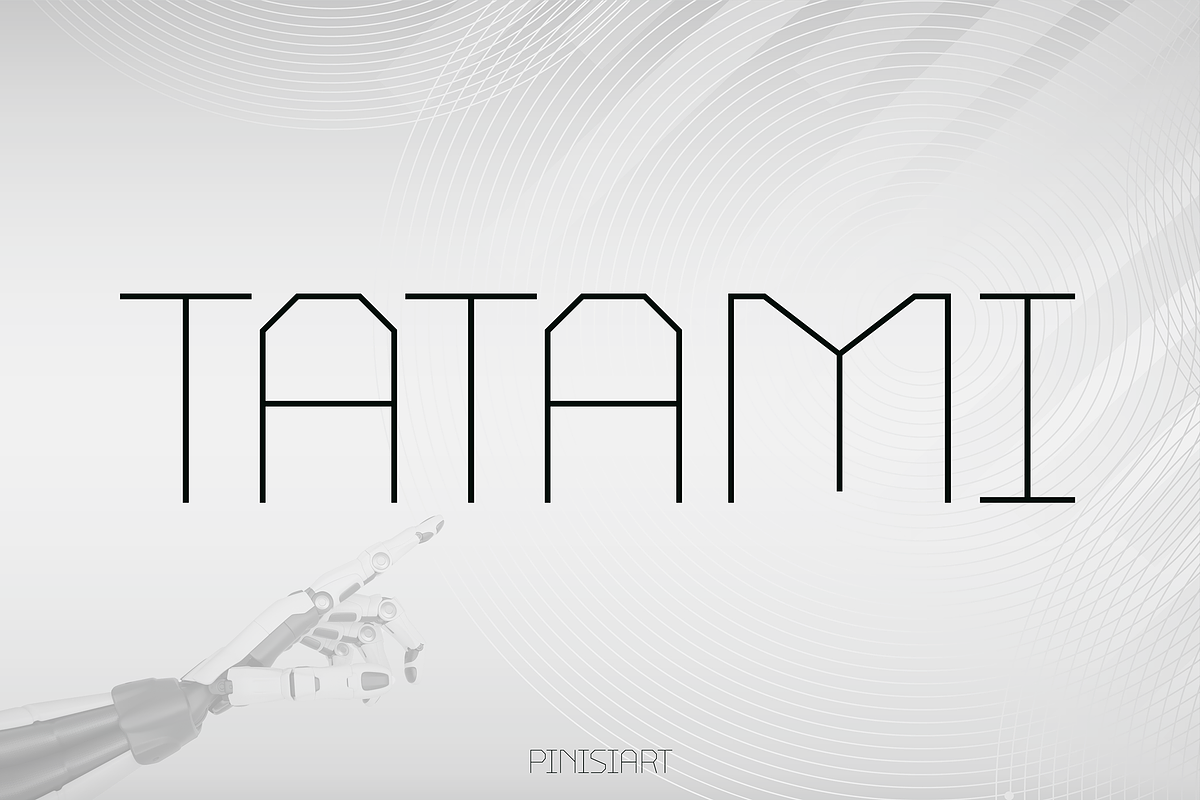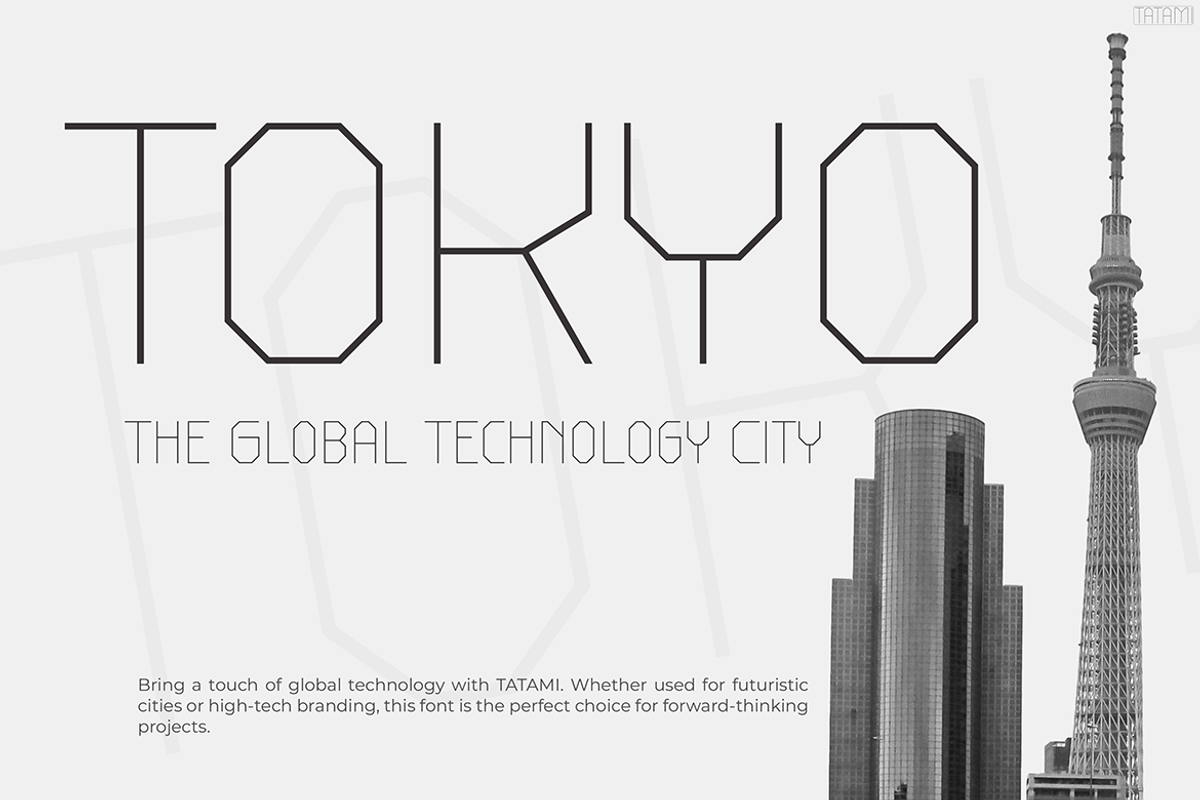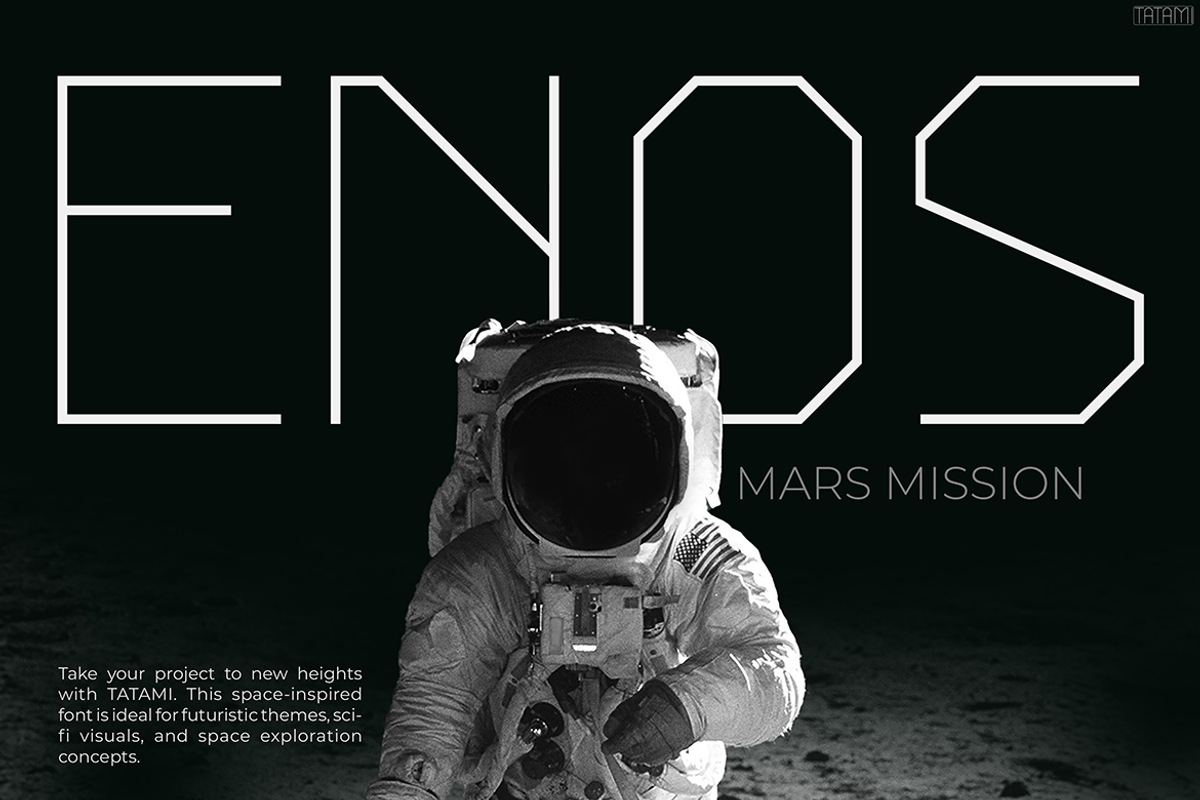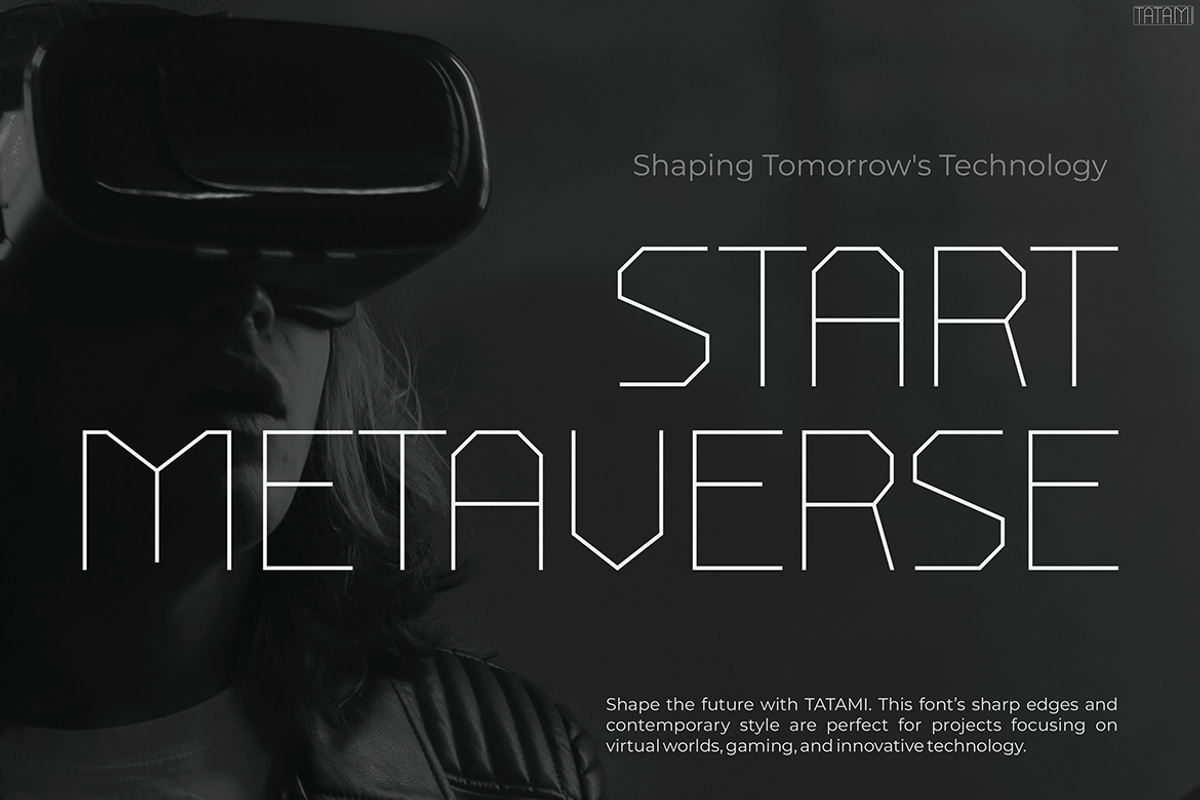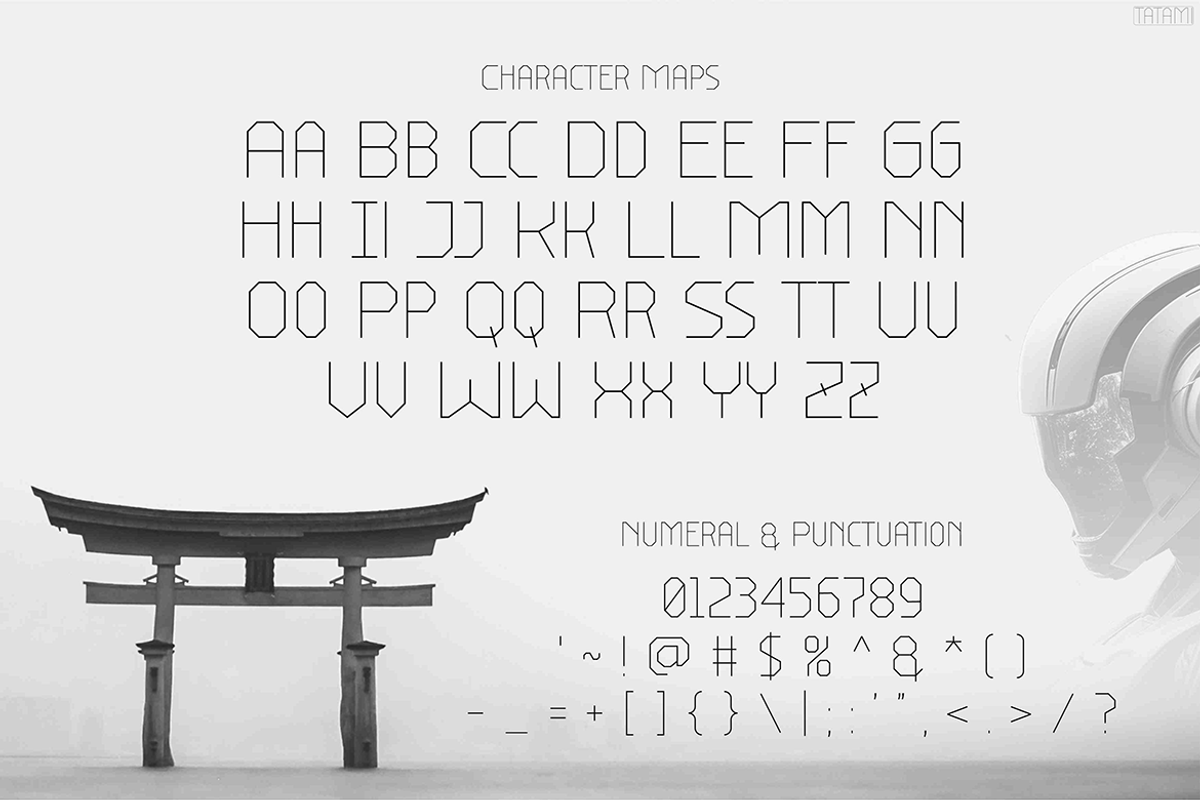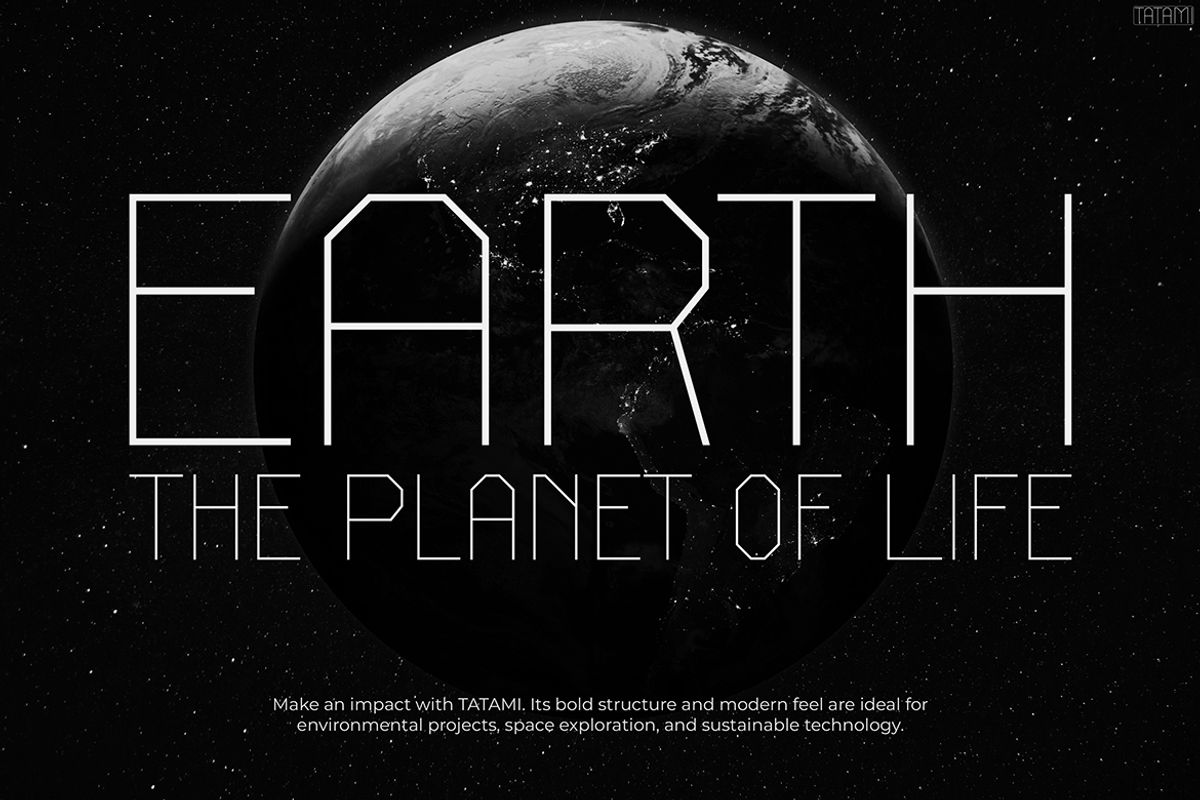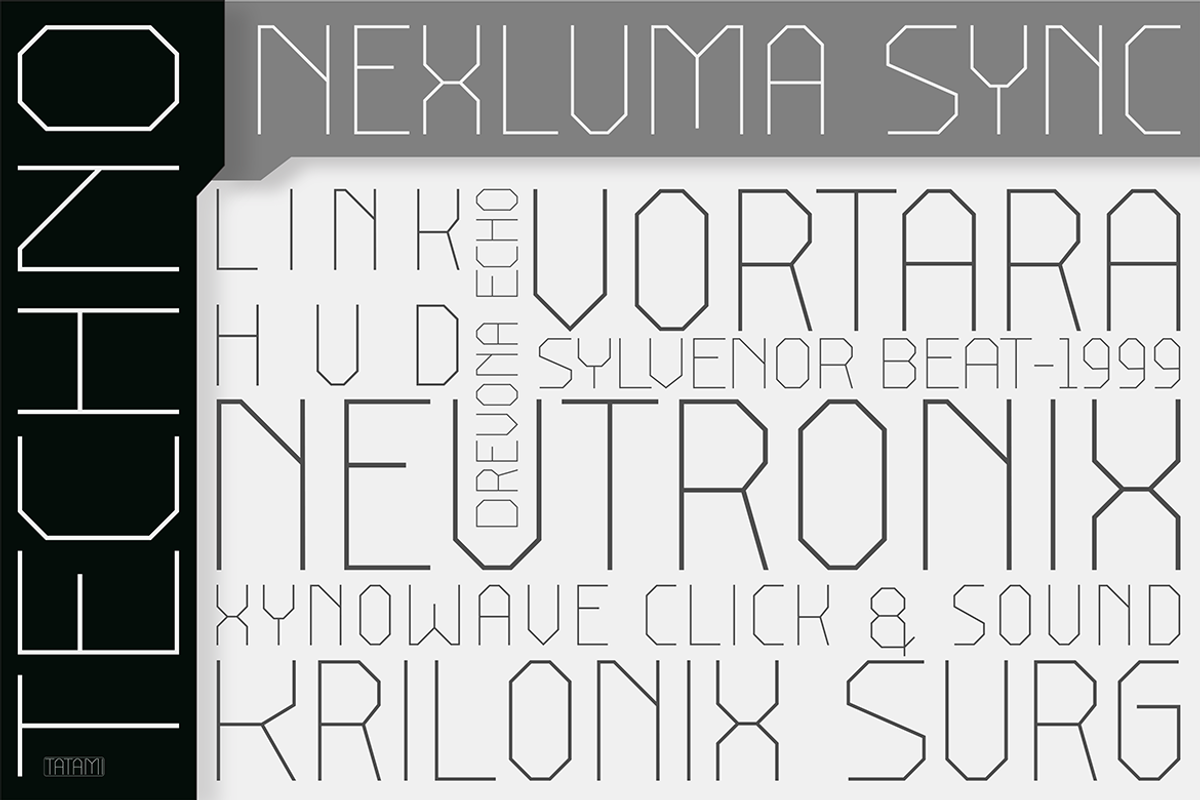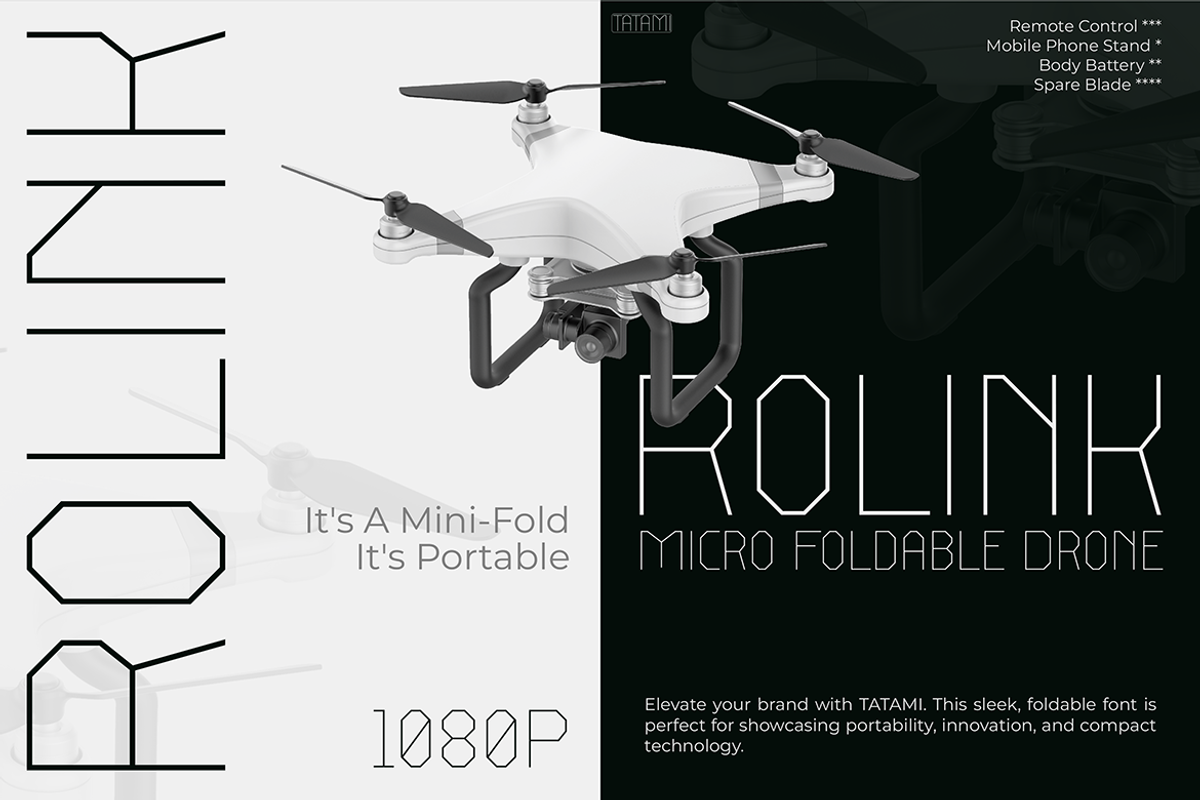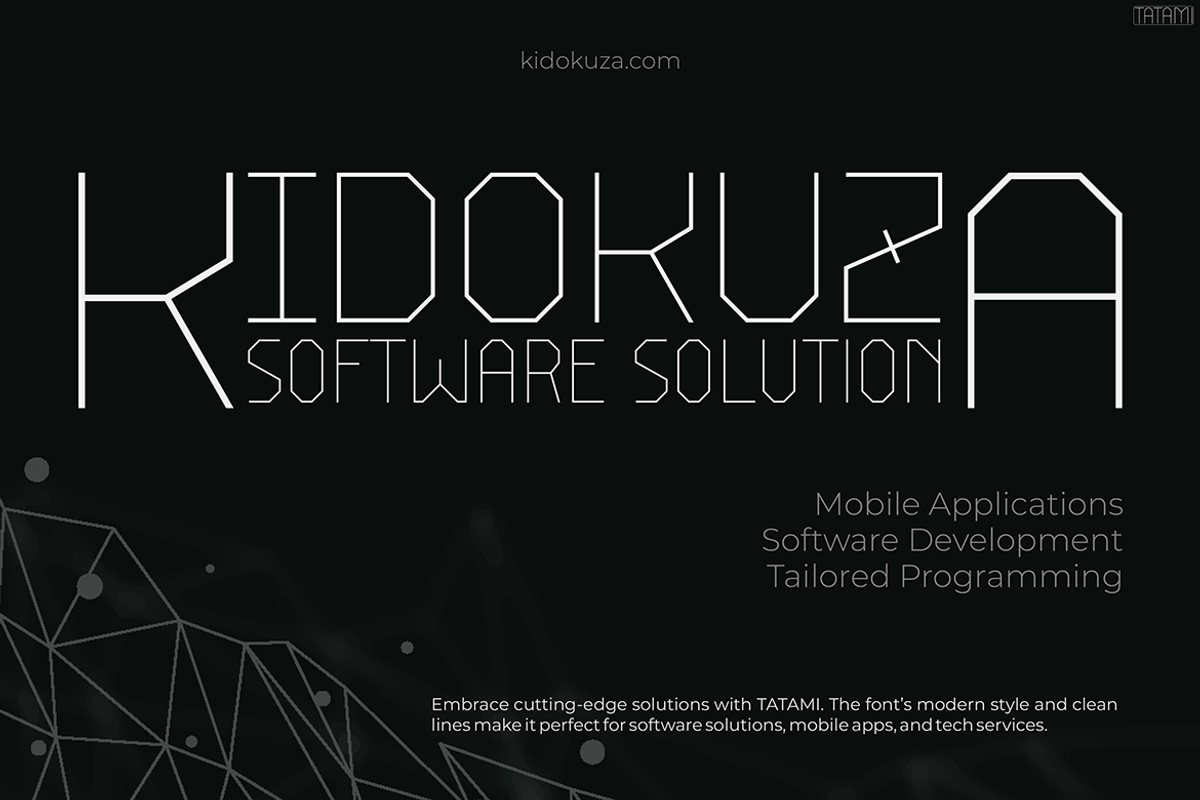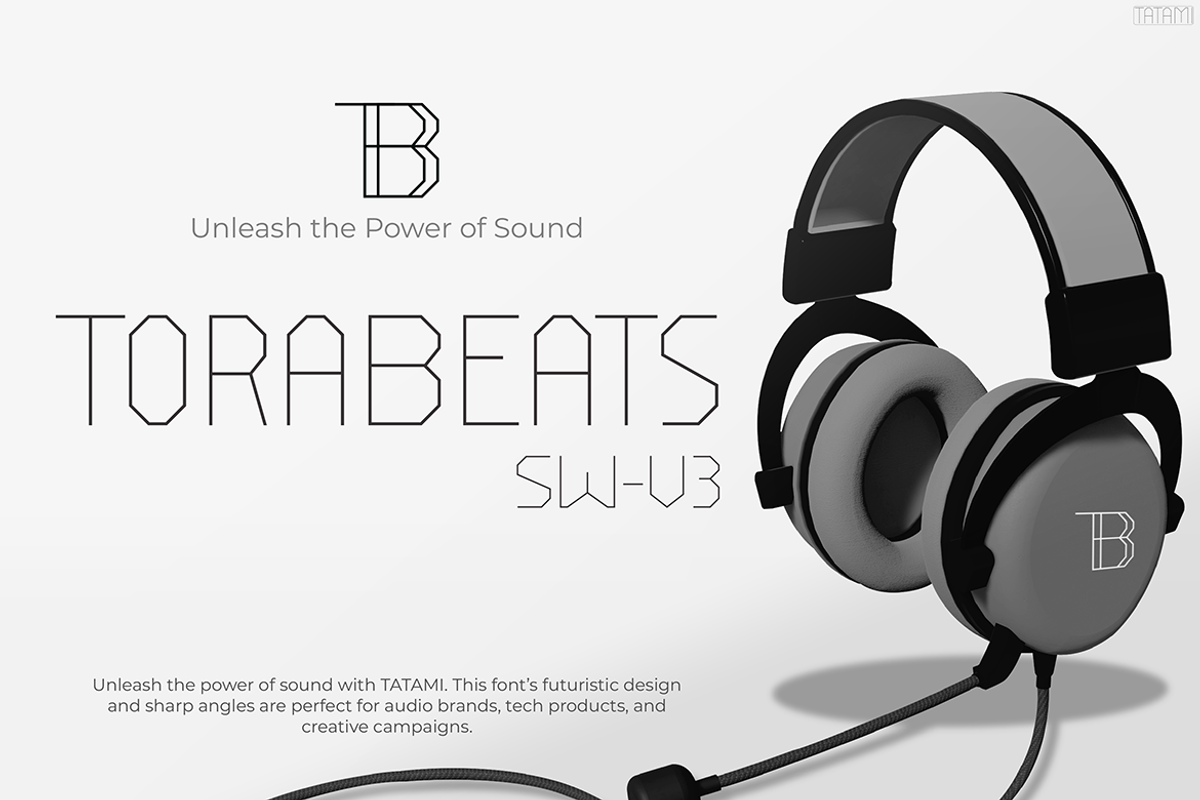
TATAMI
Futuristic Font TATAMI – A Bold Statement in Typography
Futuristic Font TATAMI is a sleek, modern typeface that brings innovation and style to any design. With its sharp angles, geometric precision, and high-tech aesthetics, this font truly embodies the future of digital branding. Moreover, its clean yet edgy structure makes it perfect for creating a strong visual identity. Whether you are working on branding, marketing, or creative projects, TATAMI stands out due to its unique blend of minimalism and futuristic appeal.